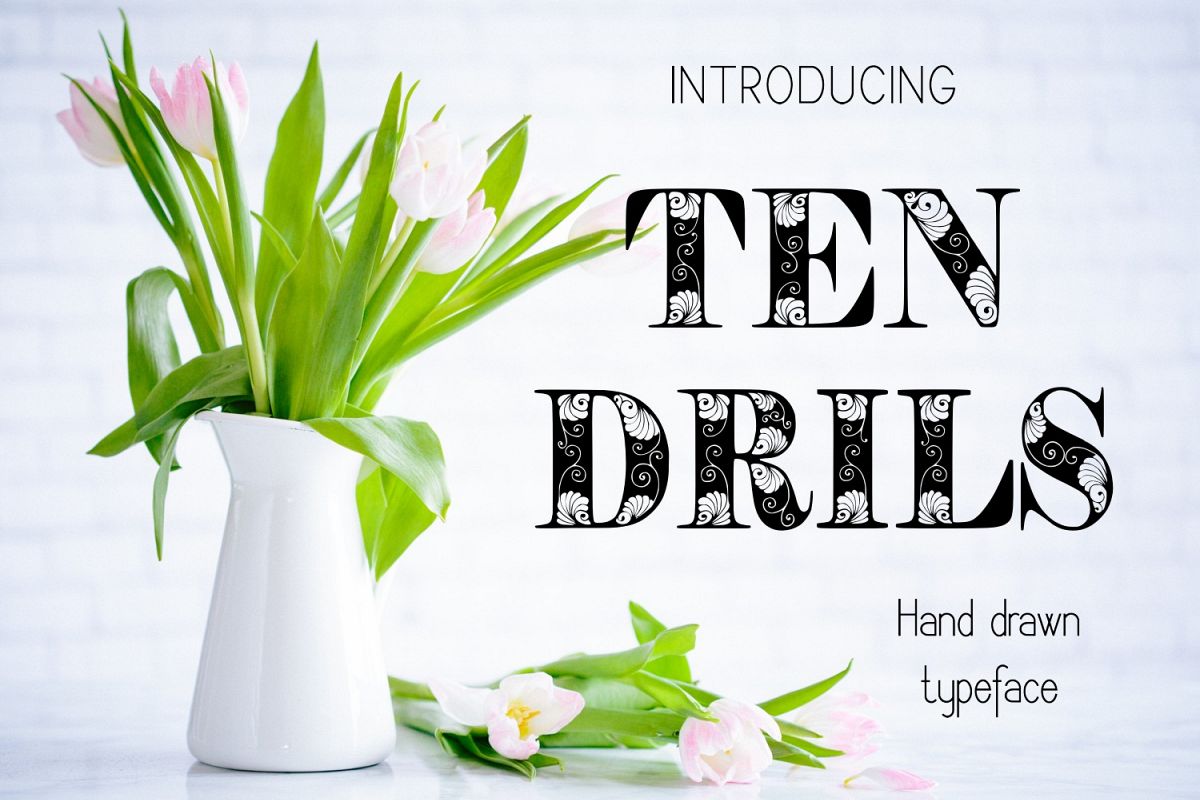
Tendrils font
Introducing Tendrils hand drawn decorative font.
This font is great for book covers, titling, signage, poster, flyers, calendars, headlines, businnes cards and other printed stationeries.